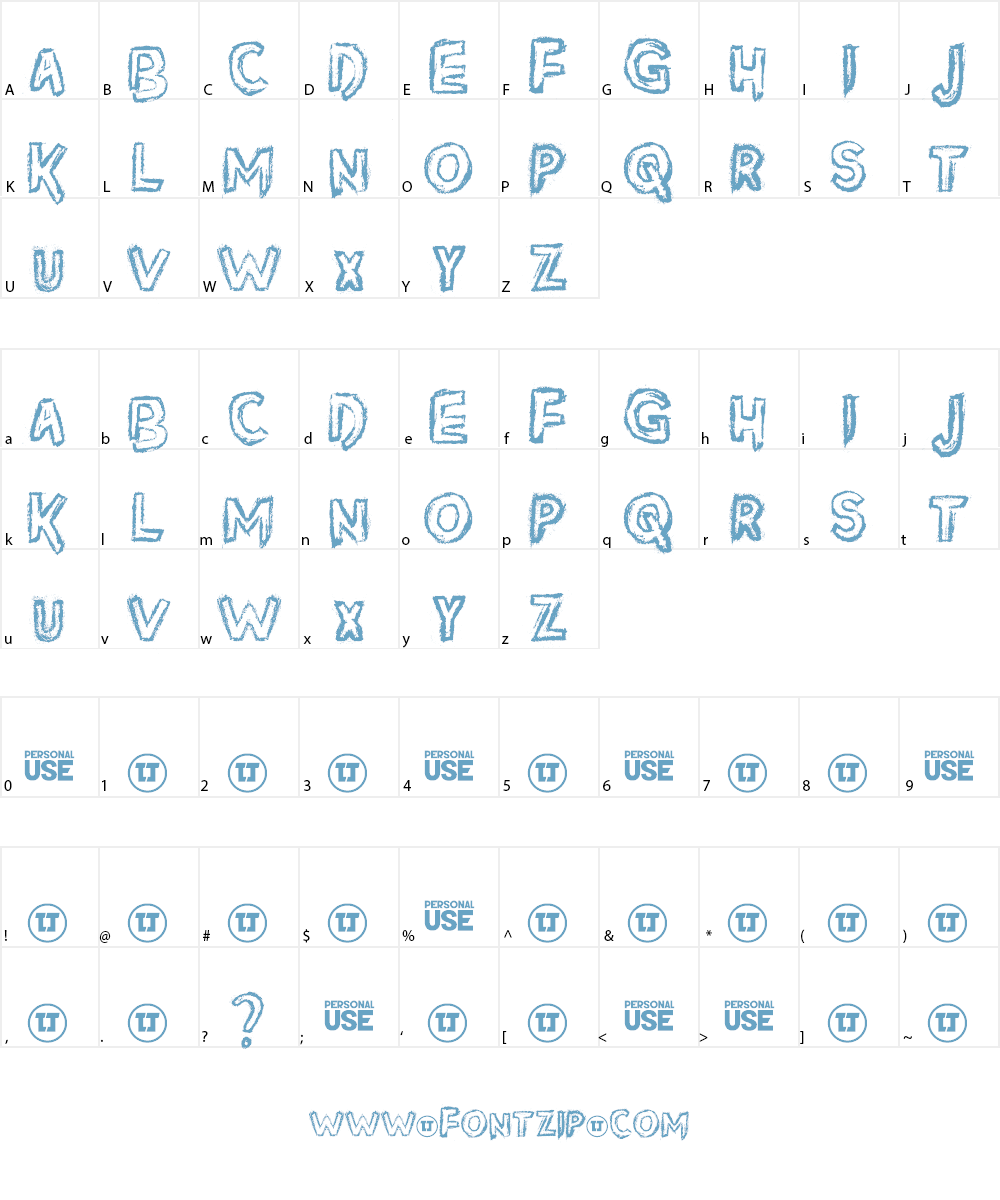
A variable of Home with a more personal style and specific purposes
Español:
Una variable de Inicio Inicio con un estilo más personal y propositos especificos